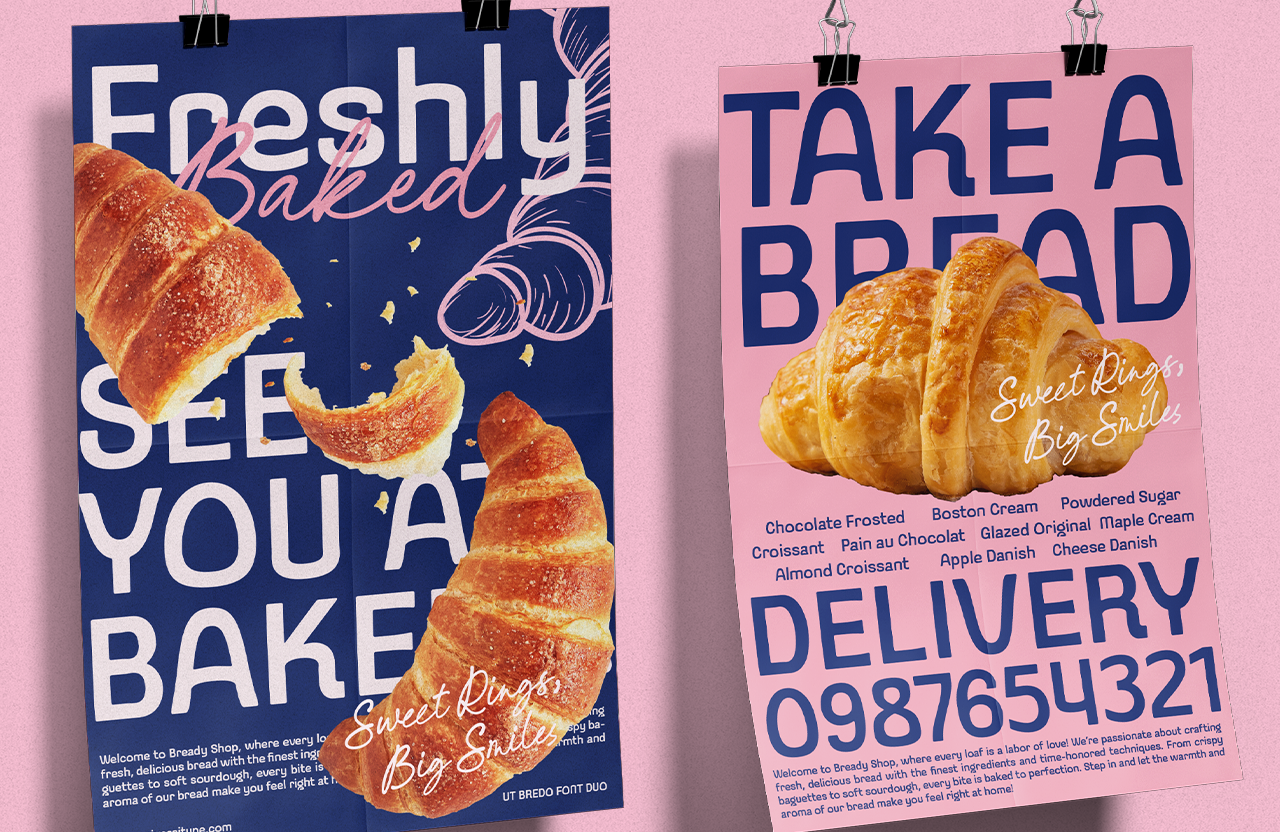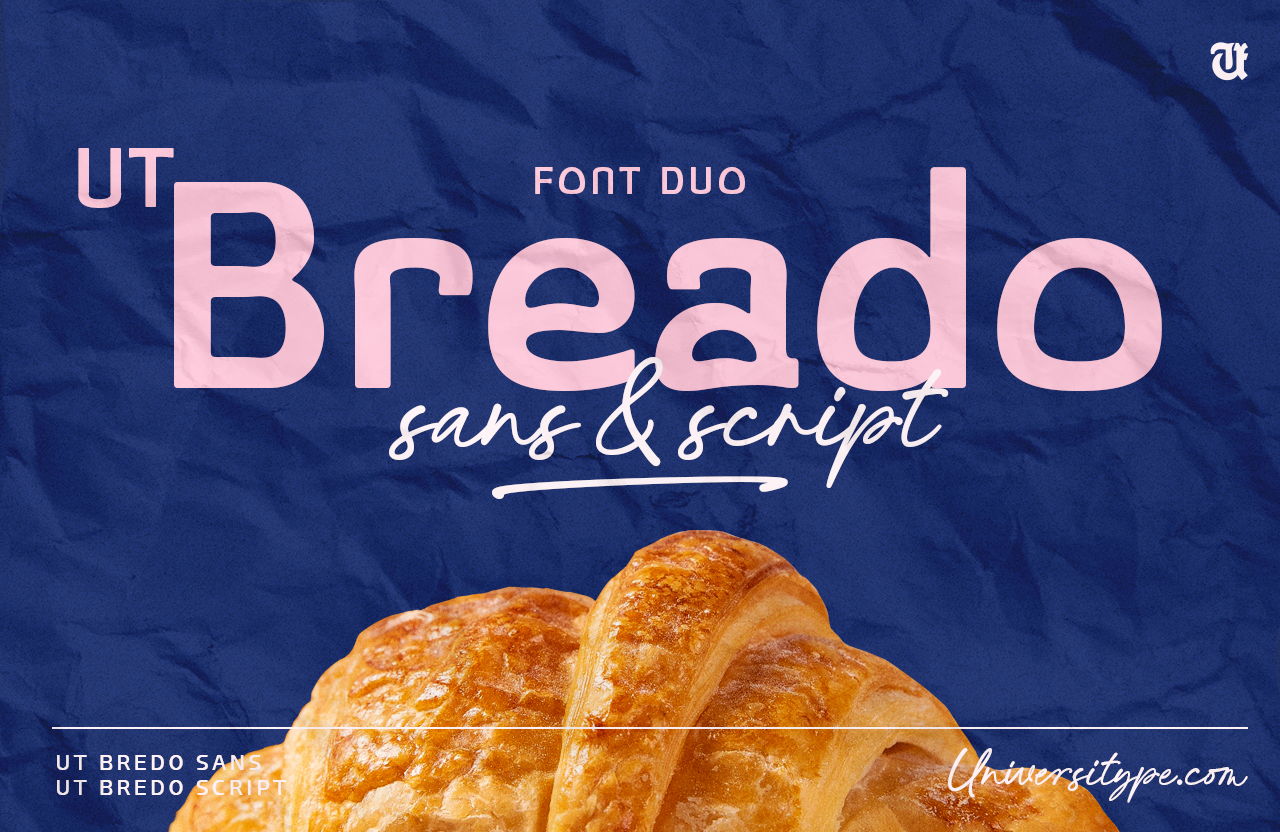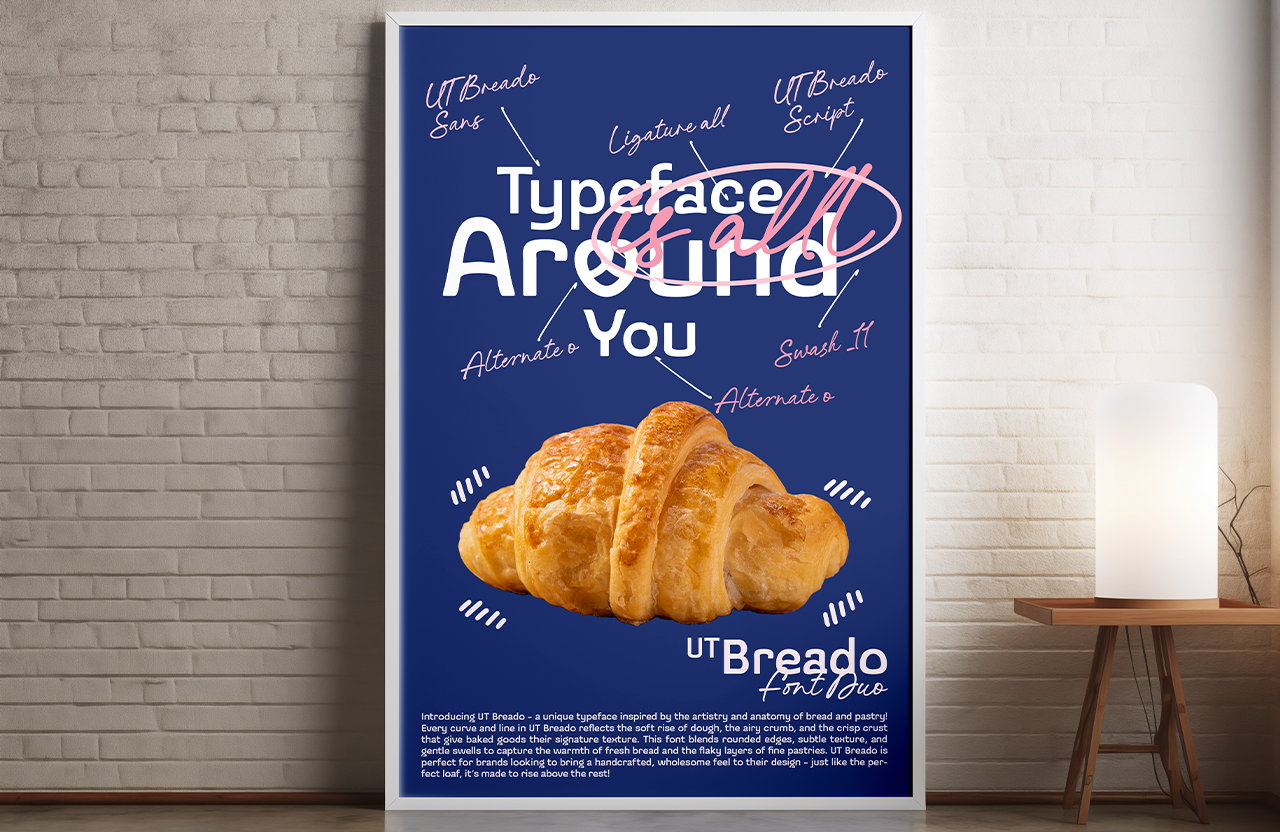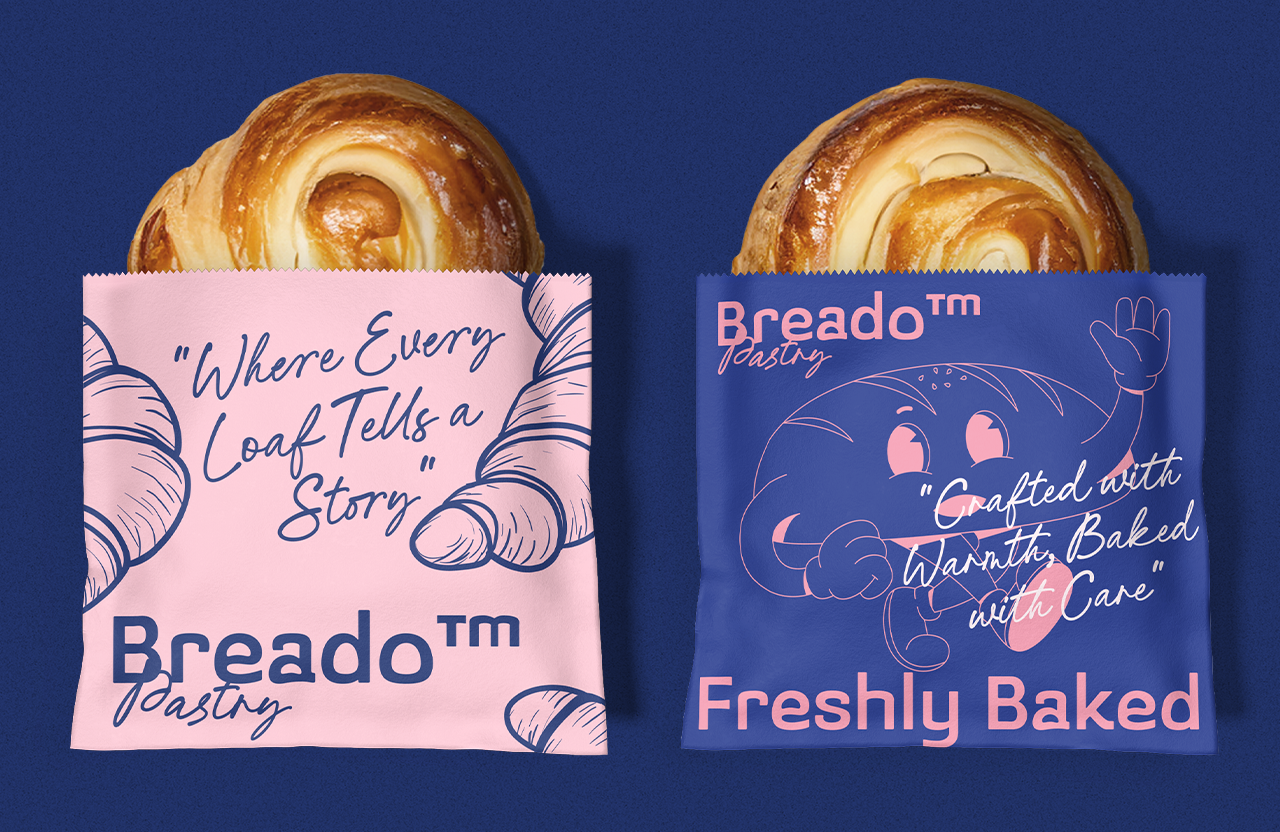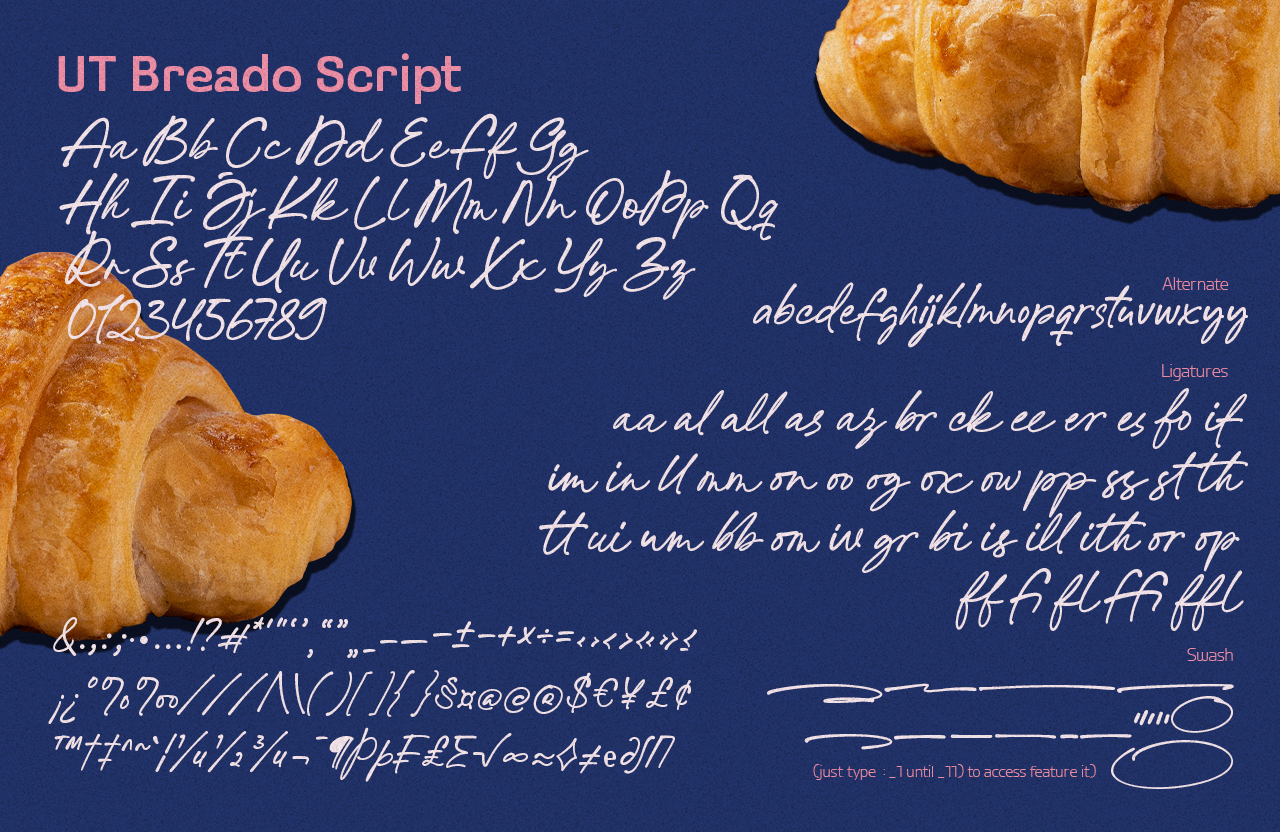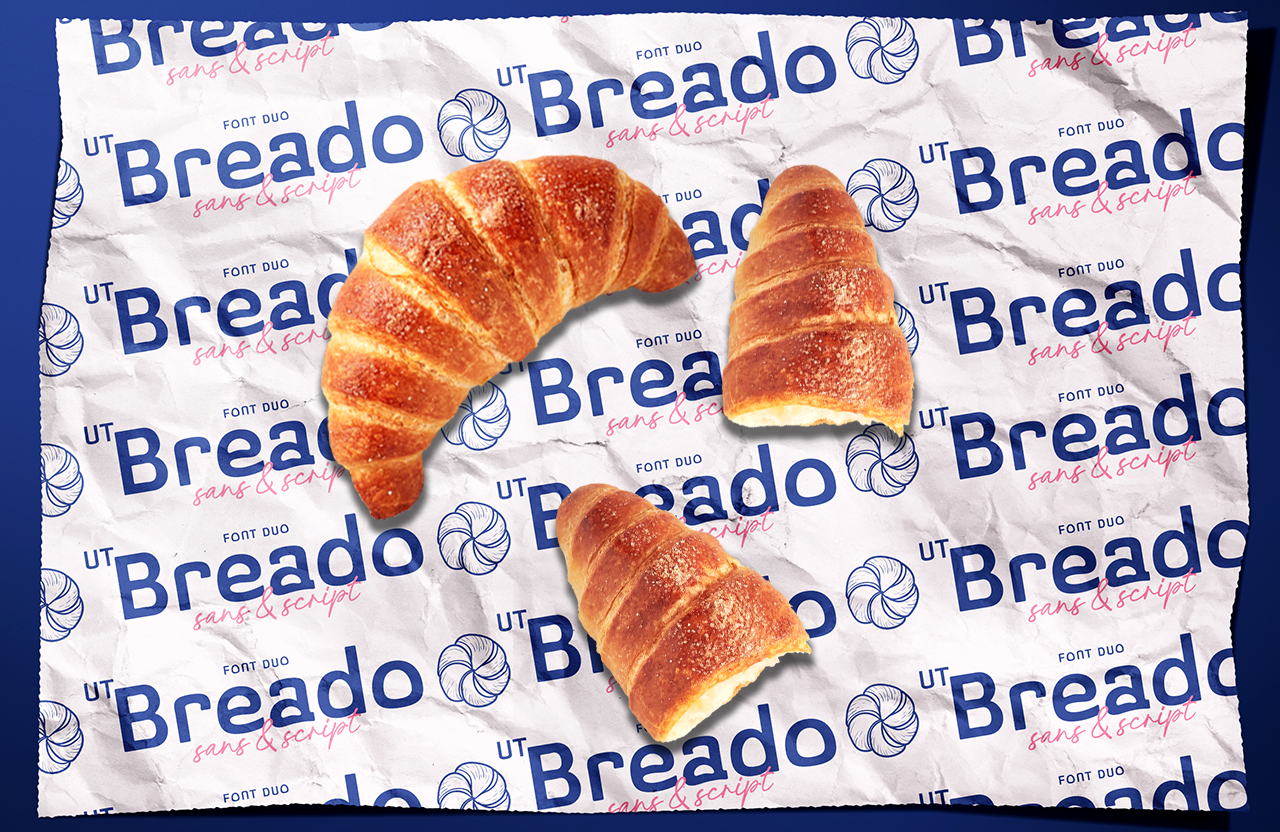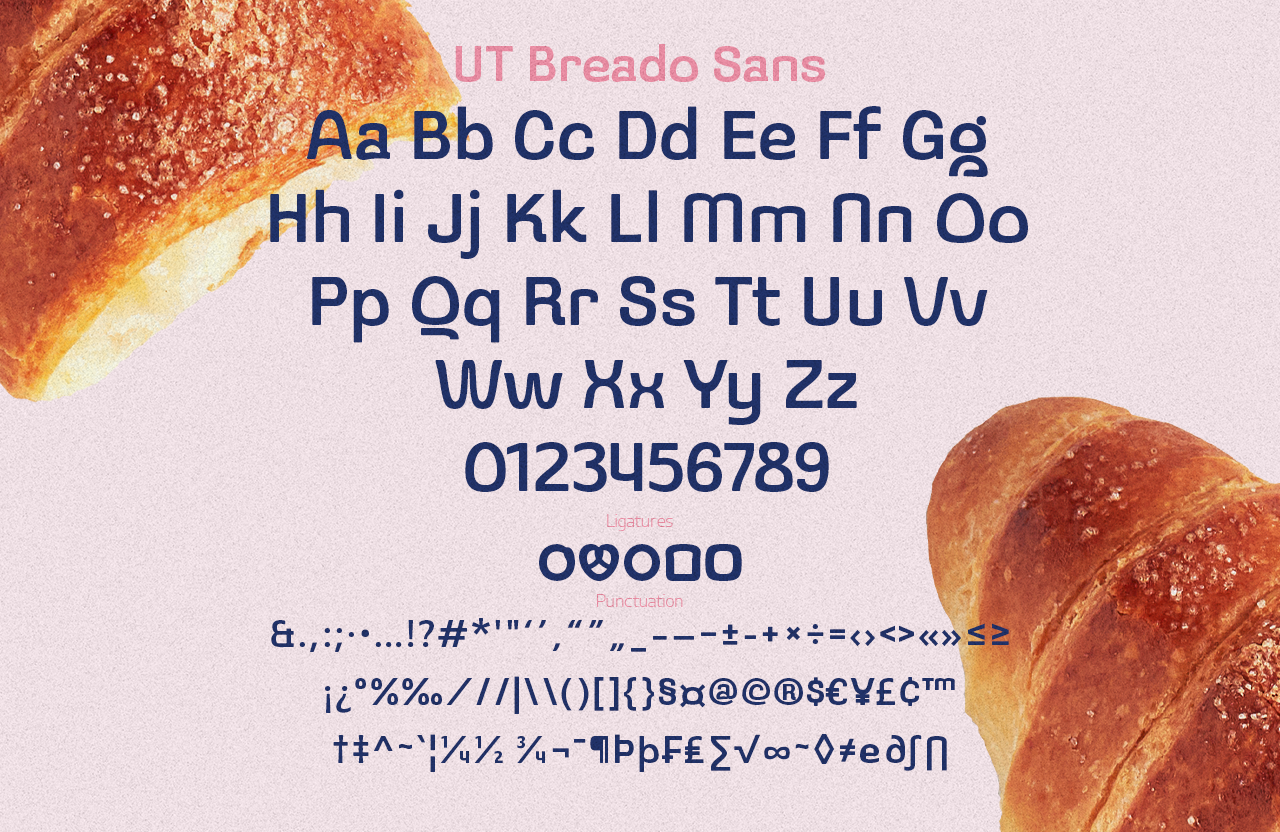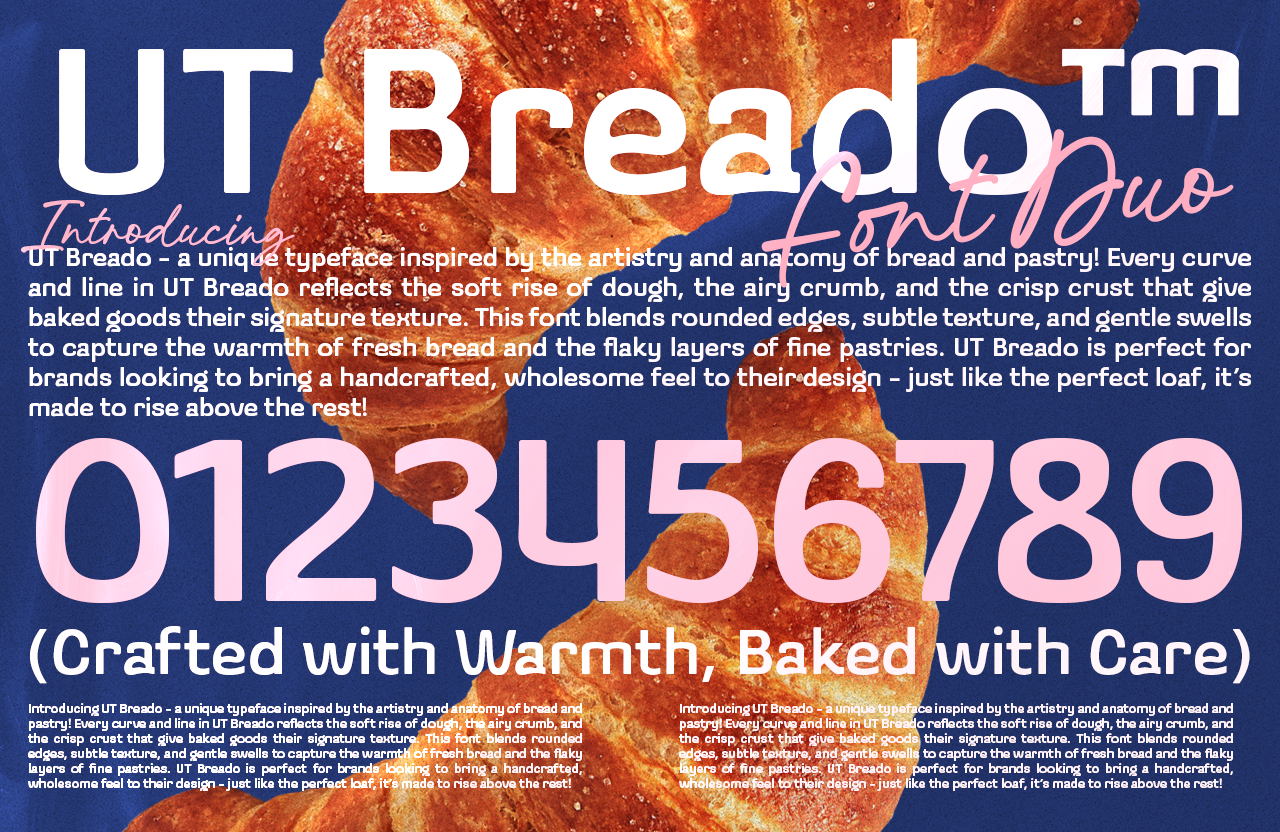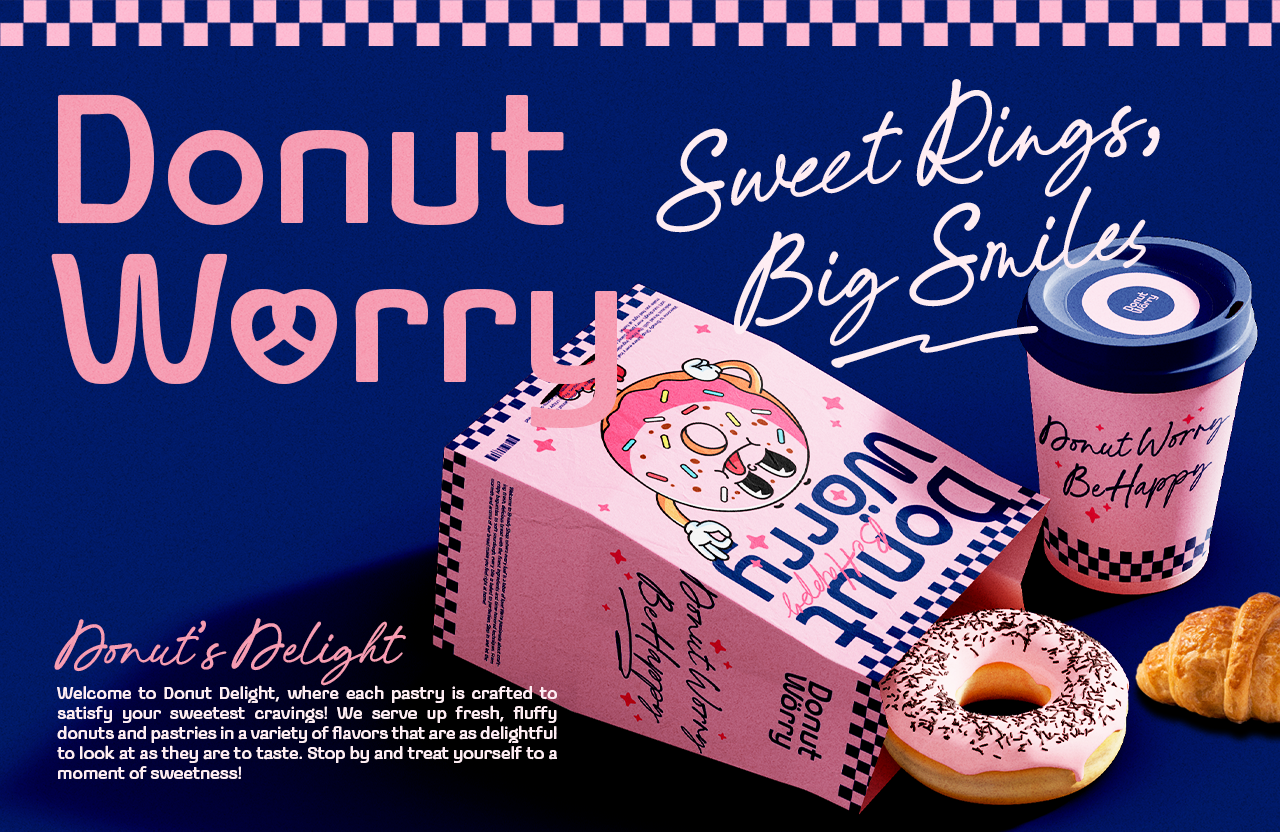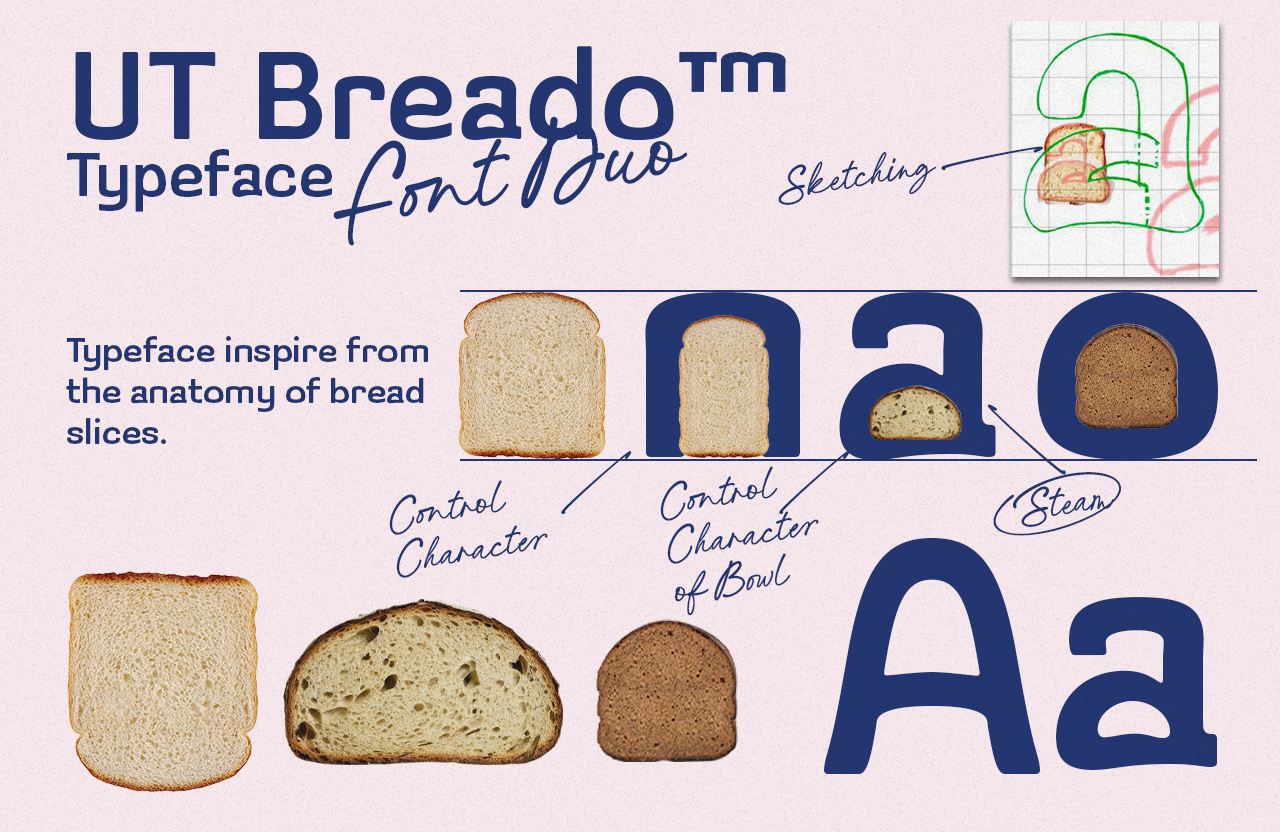
UT Breado Font Duo
Immerse your design in the comforting embrace of UT Breado Font Duo, a typeface that effortlessly redefines classic typography. Drawing from the soft, gentle forms of bread slices straight out of the oven, this typeface envelops its audience in the familiar warmth and artisanal charm of fresh, handcrafted bread.
Designed for the imaginative creators, UT Breado Font Duo poises itself between friendly amiability and finely tuned aesthetics. With this unique blend, it emerges as the quintessential element for compelling visual narratives and brand identities.
Embodying Artisan Aesthetics for Brands
UT Breado Font Duo stands out with its smooth, rounded letter designs, emanating a handcrafted, welcoming vibe. Each minutely detailed curve mirrors the appealing softness of baked goods, establishing itself as the go-to choice for brands that cherish authenticity and allure. Whether it’s to distinguish a quaint café, food packaging designs, or community-centric campaigns, this typeface captivates audiences yearning warmth in design and product alike.
Distinctive Design Attributes
- Organic Structures: Each character in the UT Breado Font Duo, inspired by free-flowing forms of bread slices, radiates innate elegance and ease.
- Two-in-one: The typeface presents two harmonious styles, apt for diverse design applications ranging from impactful headlines to nuanced body text.
- Creative Ligatures and Alternates: Expertly constructed to unfold an added dimension of personality and creativeness in your design.
- Inclusive Linguistic Support: The typeface embraces an extensive assortment of Latin symbols, numerals, and punctuations, catering to a broad gamut of global design requisites.